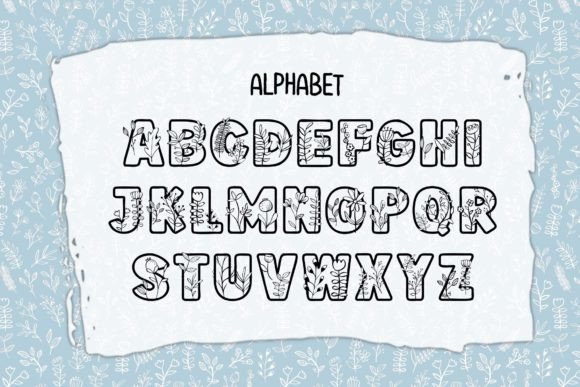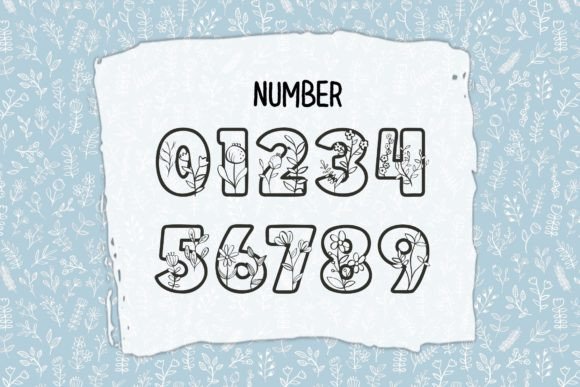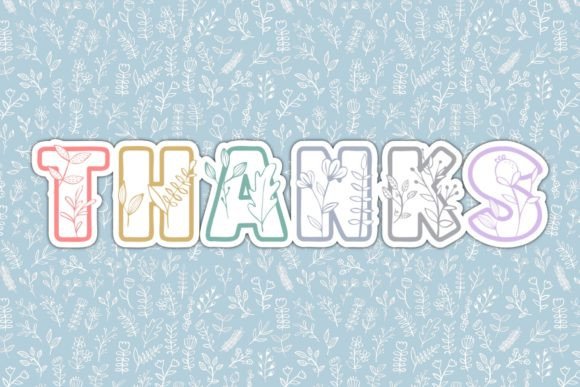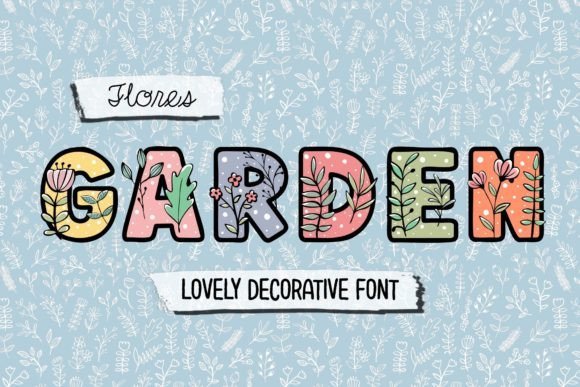
Introduction to Flores Garden Font
Flores Garden is a lovely decorative font.
This font is the perfect fit for all of your logos, branding, social media, crafty DIY projects, and much more .
Key Features of Flores Garden Font
Why Choose Flores Garden Font?